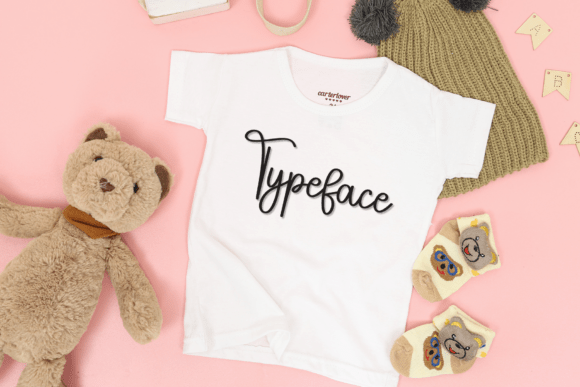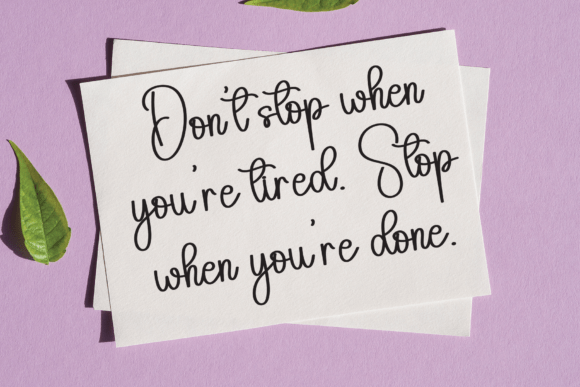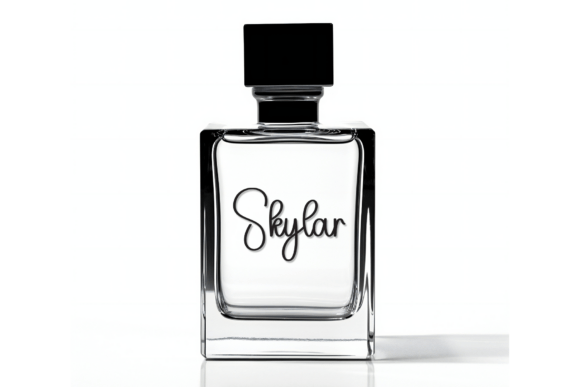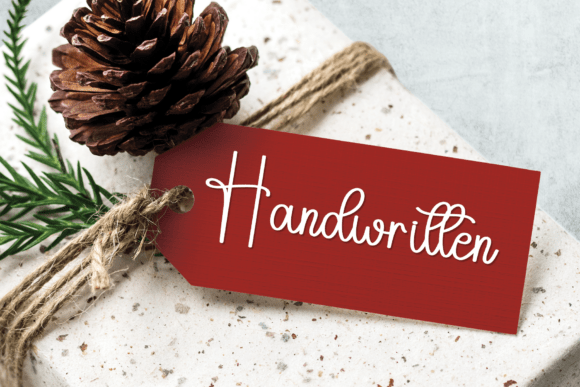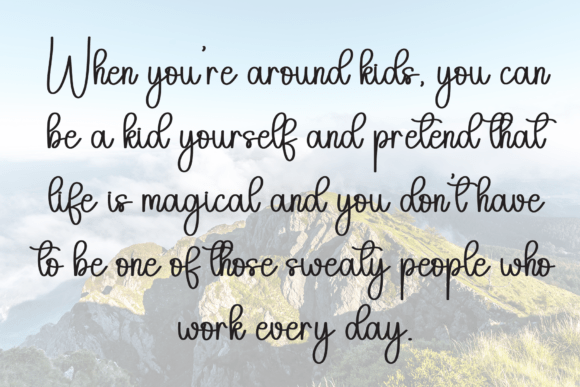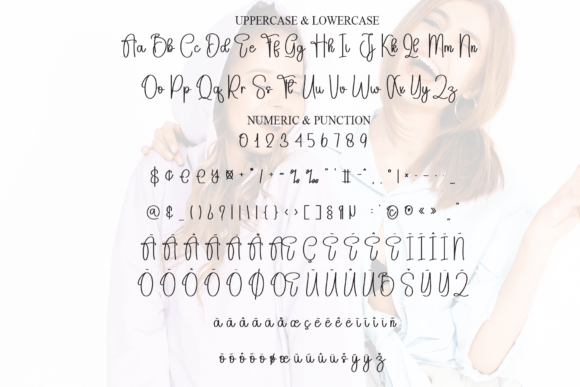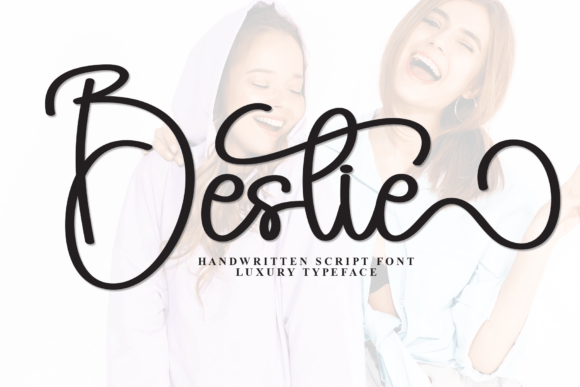
Introducing Bestie Font: Elevate Your Design with Elegance and Sophistication
In the world of typography, a well-crafted font can make all the difference in elevating your design to new heights. For those seeking a touch of luxury and sophistication, the Bestie Font is an exceptional choice. This beautiful, handwritten script is designed to bring a sense of elegance and refinement to your projects, making it perfect for lifestyle branding, high-end photography watermarks, friendship-themed marketing, and personal stationery.
The Characteristics of Bestie Font
Bestie Font is a masterpiece of typographic design, boasting a fluid, continuous-point penmanship style that exudes a sense of fluidity and movement. Its traditional slanted axis and consistent monolinear weight create a sense of harmony and balance, while the expansive character connections add a touch of elegance and sophistication.
One of the standout features of Bestie Font is its unique blend of traditional and modern elements. The font’s classic, cursive feel is perfectly balanced by its clean lines and precise letterforms, making it an excellent choice for designers seeking a refined and luxurious look.
Perfect for Lifestyle Branding and High-End Photography
Lifestyle branding and high-end photography require a level of sophistication and elegance that is hard to achieve with standard fonts. Bestie Font is specifically designed to meet these needs, providing a luxurious and refined aesthetic that is sure to impress. Whether you’re creating a brand identity, designing a watermark for your photography, or crafting a marketing campaign, Bestie Font is the perfect choice.
For lifestyle brands, Bestie Font offers a unique opportunity to create a distinctive and memorable visual identity. Its elegant lines and refined letterforms evoke a sense of luxury and sophistication, making it perfect for high-end fashion, beauty, and lifestyle brands.
Friendship-Themed Marketing and Personal Stationery
Bestie Font is not just limited to luxury branding and photography; it’s also an excellent choice for friendship-themed marketing and personal stationery. The font’s warm, approachable feel makes it perfect for creating heartfelt and personalized designs that celebrate the beauty of friendship.
For personal stationery, Bestie Font offers a level of elegance and sophistication that is hard to find in standard fonts. Whether you’re creating custom stationery, greeting cards, or invitations, Bestie Font is sure to make a lasting impression.
Why Choose Bestie Font?
So why choose Bestie Font over other fonts on the market? Here are just a few reasons why this exceptional typeface stands out:
- Luxurious and refined aesthetic: Bestie Font is designed to bring a touch of luxury and sophistication to your designs, making it perfect for high-end branding and marketing.
- Fluid, continuous-point penmanship style: The font’s unique penmanship style creates a sense of fluidity and movement, adding a touch of elegance to your designs.
- Traditional slanted axis and consistent monolinear weight: These classic features create a sense of harmony and balance, making Bestie Font perfect for a wide range of design applications.
- Expansive character connections: The font’s expansive character connections add a touch of elegance and sophistication, making it perfect for high-end branding and marketing.
In conclusion, Bestie Font is an exceptional choice for designers seeking a luxurious and refined aesthetic for their projects. Its unique blend of traditional and modern elements, combined with its fluid, continuous-point penmanship style, make it perfect for lifestyle branding, high-end photography watermarks, friendship-themed marketing, and sophisticated personal stationery.
Whether you’re a designer, craft, or simply someone who appreciates the beauty of typography, Bestie Font is sure to impress. So why settle for a standard font when you can elevate your design with the elegance and sophistication of Bestie Font?